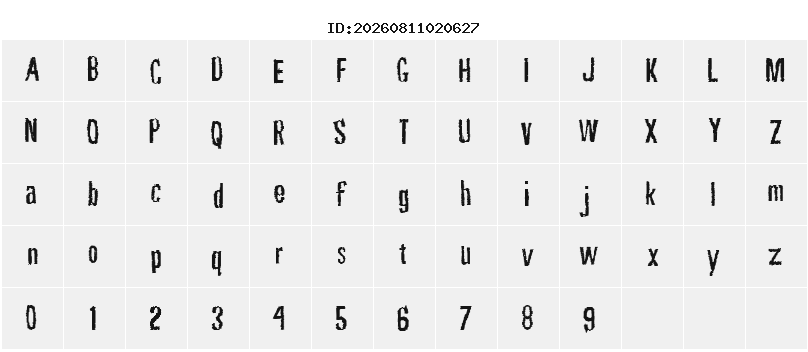
• Font Name: Rubbing Font
• Full Font Name: Rubbing Font
About Rubbing Font.ttf
Rubbing Font.ttf is a modern, elegant sans-serif font designed for ultimate readability and visual harmony. Perfect for branding, headlines, web design, and print materials.